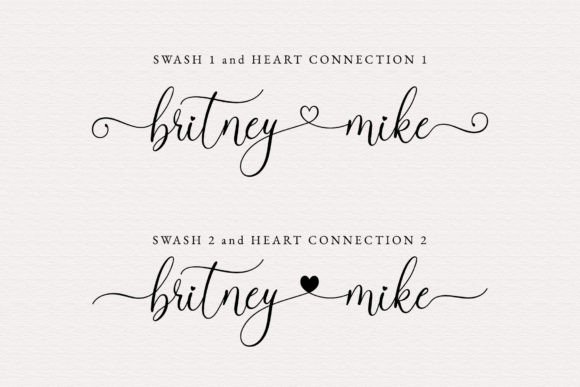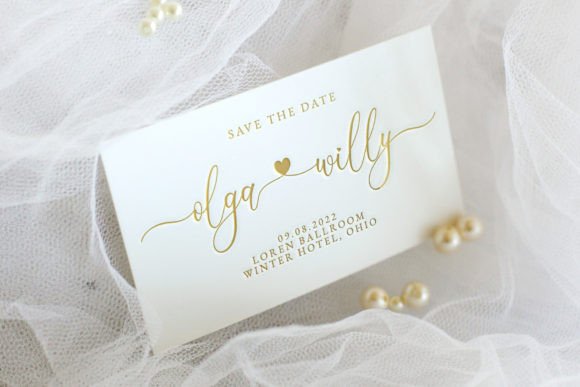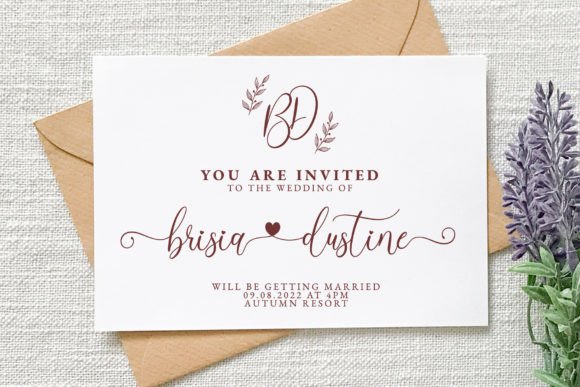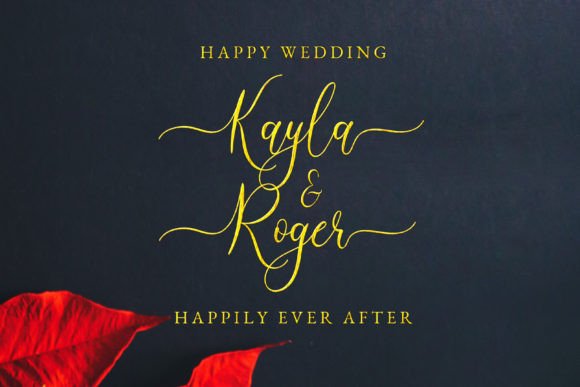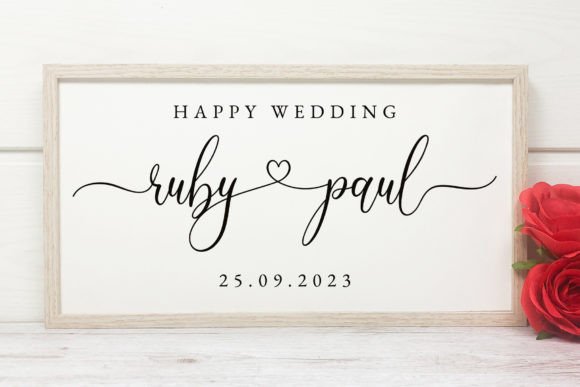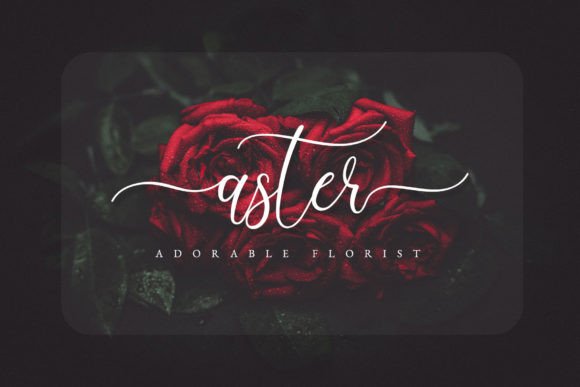
Introducing For Bestie Font: The Ultimate Elegant Script Font for Designers and Crafters
Are you a designer or crafter looking for a font that exudes elegance and sophistication? Look no further than For Bestie Font, a thin and chic script font that’s perfect for creating beautiful designs with a lovely vibe. In this article, we’ll dive into the features and benefits of For Bestie Font, and explore how it can elevate your design projects.
What is For Bestie Font?
For Bestie Font is a stunning script font that’s designed to add a touch of elegance and whimsy to your designs. This font is characterized by its thin and delicate strokes, which give it a bouncy, sweet, and elegant feel. The font features a tail swash at both the front and back, adding a playful and dynamic touch to your text. Additionally, the heart connection swash provides a romantic and affectionate feel, making it perfect for designs related to love and relationships.
Key Features of For Bestie Font
- Thin and Chic Design: For Bestie Font boasts a slender and refined design that’s perfect for creating elegant and sophisticated text.
- Bouncy, Sweet, and Elegant: The font’s unique design elements give it a lively and charming feel that’s sure to capture your audience’s attention.
- Tail Swash: The font features a tail swash at both the front and back, adding a playful and dynamic touch to your text.
- Heart Connection Swash: The heart connection swash adds a romantic and affectionate feel to your designs, making it perfect for Valentine’s Day, wedding, and other love-related designs.
- PUA Encoded: For Bestie Font is PUA encoded, which means you can access all the glyphs and swashes with ease, giving you maximum flexibility and creative control.
Perfect for Elegant and Lovely Designs
For Bestie Font is the perfect choice for designers and crafters who want to create elegant and lovely designs. Its unique features make it ideal for a variety of design projects, including:
- Valentine’s Day Designs: The font’s romantic and affectionate feel makes it perfect for creating beautiful Valentine’s Day cards, posters, and social media graphics.
- Wedding Designs: For Bestie Font’s elegant and sophisticated design makes it a great choice for wedding invitations, ceremony programs, and wedding website headers.
- Farmhouse Designs: The font’s rustic and charming feel also makes it suitable for farmhouse-style designs, such as country-themed posters, signs, and social media graphics.
Why Choose For Bestie Font?
With so many fonts available, why choose For Bestie Font? Here are just a few reasons why designers and crafters love this font:
- Unique and Eye-catching: For Bestie Font’s unique design elements make it stand out from other fonts, ensuring your designs grab attention and leave a lasting impression.
- Elegant and Sophisticated: The font’s elegant and sophisticated design makes it perfect for creating high-end designs that exude luxury and refinement.
- Easy to Use: For Bestie Font is PUA encoded, making it easy to access all the glyphs and swashes, even for designers who are new to font editing software.
In conclusion, For Bestie Font is a stunning script font that’s perfect for designers and crafters who want to create elegant and lovely designs. Its unique features, such as the tail swash and heart connection swash, make it ideal for a variety of design projects, from Valentine’s Day and wedding designs to farmhouse-style designs. With its PUA encoding and easy-to-use design, For Bestie Font is a great addition to any designer’s or crafter’s font collection.